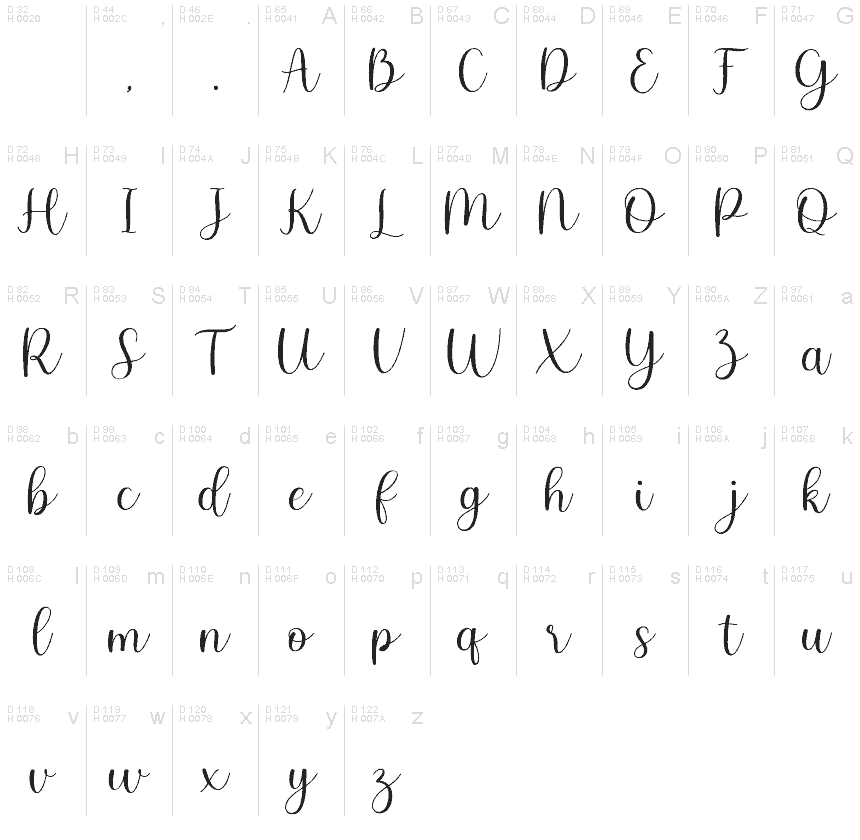
Rosalie Regular
In terms of calligraphy style, the Rosalie script font is an example of what art is; elegance, flow and beauty all put together.
The simple lines in the font add a touch of grace to every text you create, with Rosalie being perfect for all your branding and marketing projects, titles and quotes, business cards and wedding/ invitation cards, etc. (courtesy of Achmad Yani).
Thanks to its elegant and delicate look, Rosalie is suitable for a variety of purposes, including but not limited to book titles, labels and logo branding.